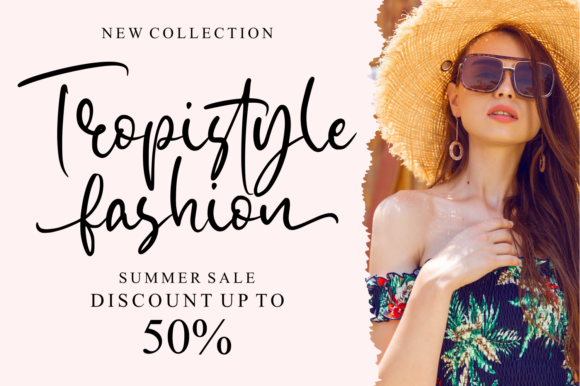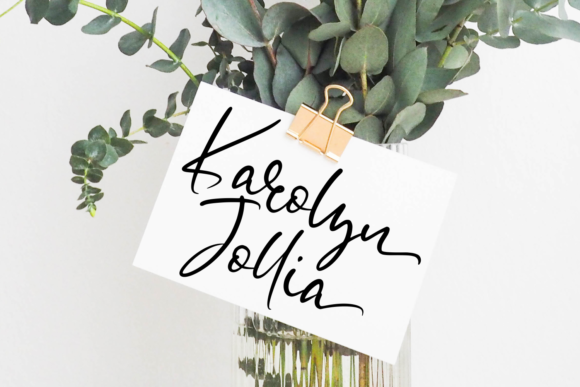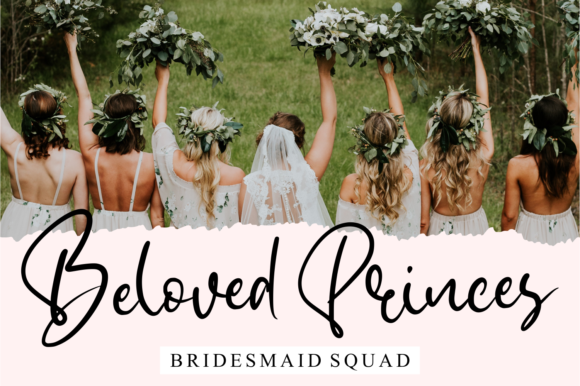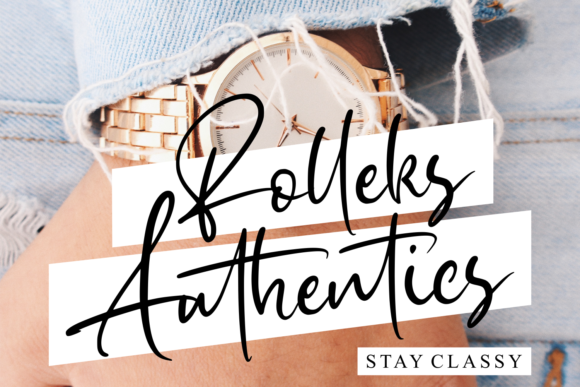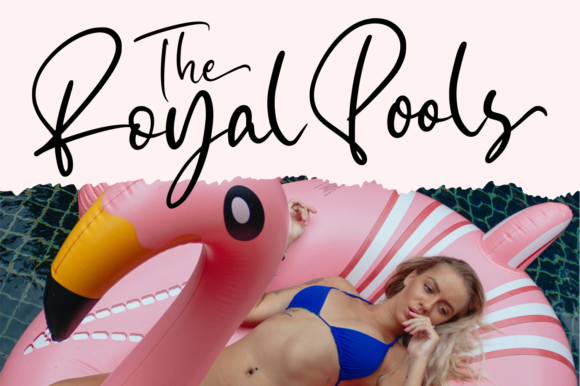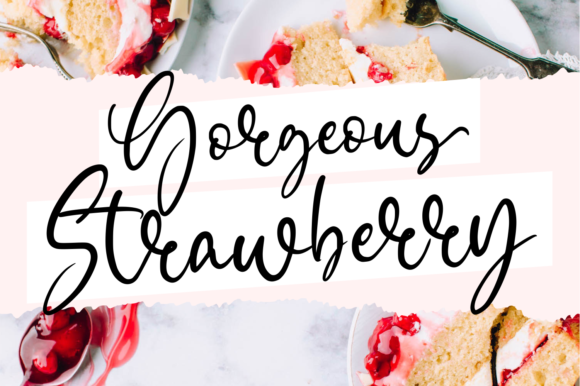
Introduction to Romantic Butterfly Font
Do you remember the thrill of creating a project that perfectly captures the essence of your client’s vision? The rush of excitement as you see your design come to life, and the sense of pride that comes with knowing you’ve made something truly special? For designers, moments like these are what make all the hard work worth it. And when it comes to adding that extra touch of magic to a creative project, a beautiful font can be the key to unlocking its full potential.
One font that’s sure to inspire your next design masterpiece is the Romantic Butterfly Font. This charming script font features playful, dancing characters that seem to leap off the page and onto your design. With its high-quality design and transparent background, it’s the perfect resource for any designer looking to add a touch of whimsy and romance to their work.
Key Features of Romantic Butterfly Font
- Unique, whimsical design ideal for creative projects, such as invitations, greeting cards, and wedding stationery.
- High-quality, vector-based font with transparent background, making it easy to place over any image or design.
- Features a beautiful, intricate design with delicate details, perfect for adding a touch of romance to any project.
Honest Review: Romantic Butterfly Font
I recently had the chance to work with the Romantic Butterfly Font, and I’m excited to share my thoughts on this beautiful design resource.
- ✨ High quality and detailed design: The Romantic Butterfly Font is a stunning addition to any creative project, with intricate details that make it perfect for romantic or whimsical themes.
- ✨ Versatile and easy to use: This font is available for free download, making it accessible to designers of all levels. Its transparent background allows for seamless integration into any design.
- ✨ Unique and elegant style: The Romantic Butterfly Font adds a touch of sophistication and romance to any project, making it perfect for weddings, Valentine’s Day, or other special occasions.
- ⚠️ Limited font weights: While the Romantic Butterfly Font is beautiful, it’s limited to a single font weight, which may not be ideal for projects requiring multiple weights or styles.
- ⚠️ Not suitable for large-scale text: Due to its intricate design, the Romantic Butterfly Font may not be the best choice for large-scale text or headings, as it may become difficult to read.
Overall, the Romantic Butterfly Font is a lovely design resource that’s perfect for adding a touch of romance and whimsy to your creative projects. While it has some limitations, its unique style and high quality make it a valuable addition to any designer’s toolkit.
How to Use Romantic Butterfly Font
Using in Creative Projects
The Romantic Butterfly Font is a high-quality design resource perfect for adding a touch of elegance to your creative projects. You can use it in a variety of applications, including Canva, Adobe Photoshop and Illustrator, and PowerPoint and Word. To use the font in these platforms, simply select it from the font menu and apply it to your text.
The Romantic Butterfly Font is commonly used in wedding invitations, greeting cards, and other creative projects that require a touch of romance and elegance. You can also use it to create custom labels, stickers, and other decorative elements for your designs.
To get the most out of the Romantic Butterfly Font, experiment with different font sizes, colors, and backgrounds to create unique and eye-catching designs. You can also pair the font with other design elements, such as images and graphics, to add depth and interest to your projects.